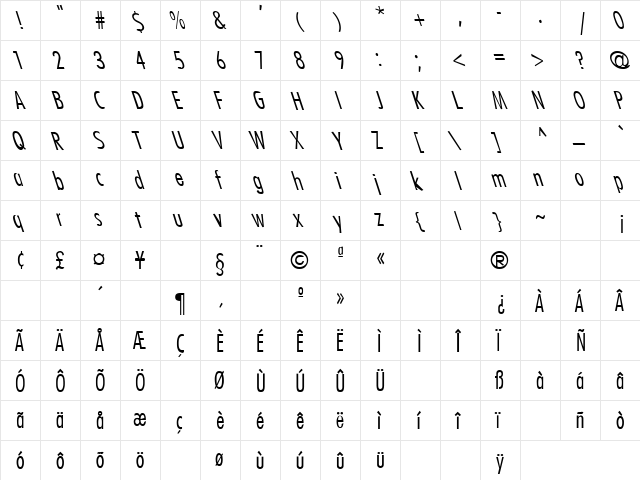
Thank You 1 Regular
Design Context for Thank You 1 Typeface
Thank You 1 takes a measured approach to typography — its balanced proportions and neutral character make it a reliable workhorse for both digital and print work.